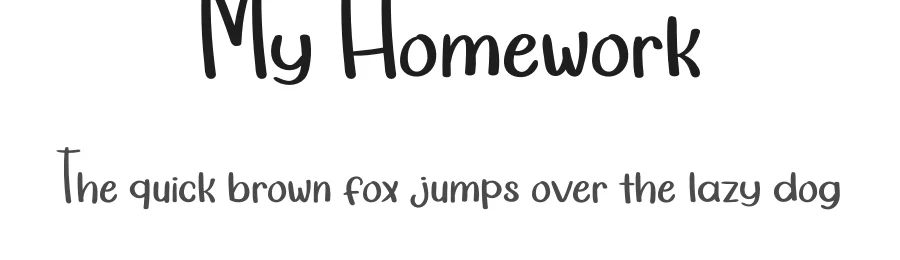
About The Dog Ate My Homework Font
The Dog Ate My Homework is a script & handwritten font designed by Christopher Jackson. It includes 179 glyphs, a regular weight, TTF (TrueType) format, and 202 languages. The Dog Ate My Homework is free to download; check the license details on this page before commercial use. Script & handwritten fonts like The Dog Ate My Homework work best for wedding invitations, greeting cards, signatures, and elegant branding.
The Dog Ate My Homework Font is a script font that shines as a display or heading face. Pair it with a clean sans-serif or serif font for body text β the contrast creates a clear hierarchy while the two styles stay balanced and easy to read.